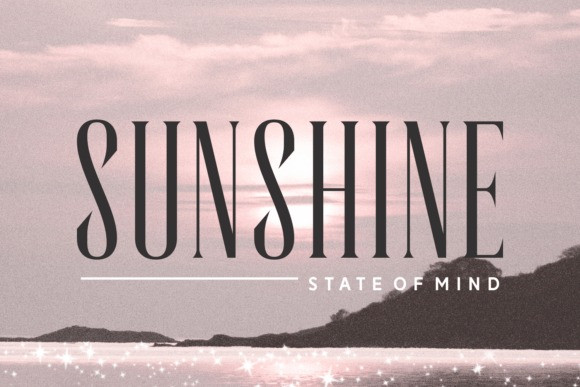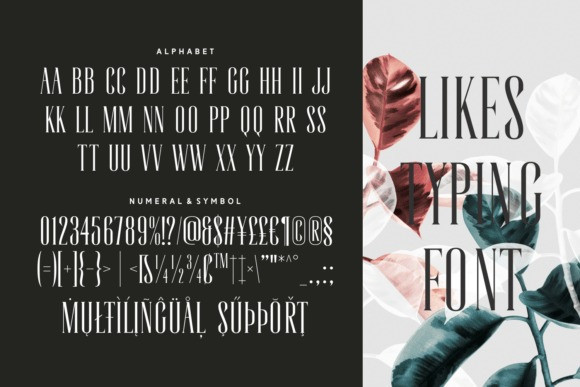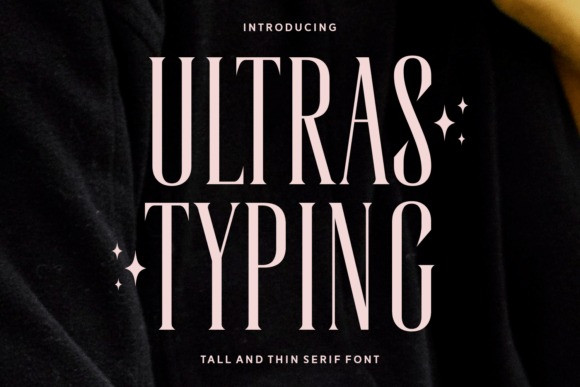
Ultras Typing Font
Ultras Typing Font, described as a tall and thin serif font. The design is accented with small star sparkles, enhancing the font’s chic and sophisticated character. Its condensed, high-contrast style makes it ideal for fashion headlines and luxury branding.